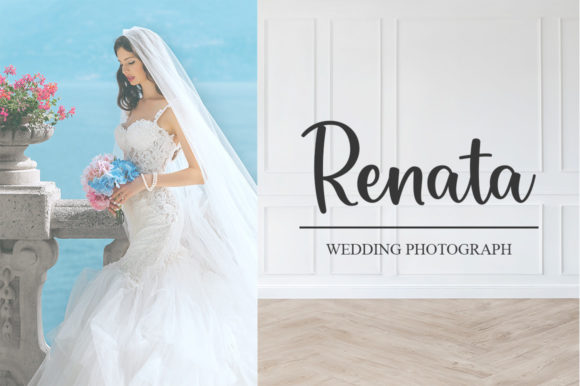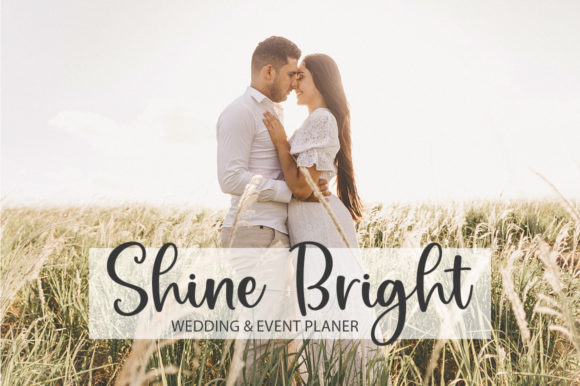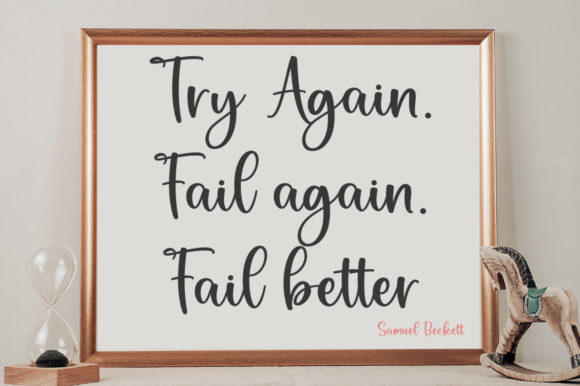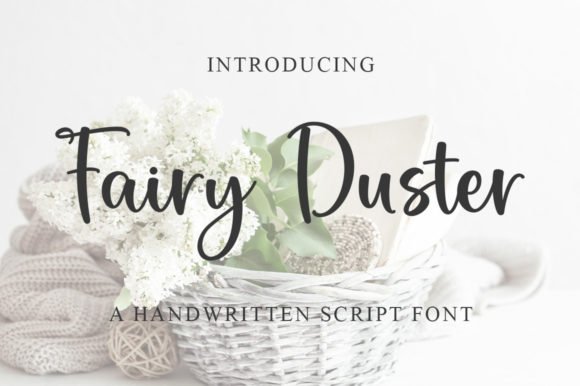
Introduction to Fairy Duster Font
Fairy Duster is a fine and smart script font that emanates sophistication and elegance.
Fall in love with its incredibly versatile style, and use it to create spectacular designs This font is PUA encoded, which means you can access all of the glyphs and swashes with ease.